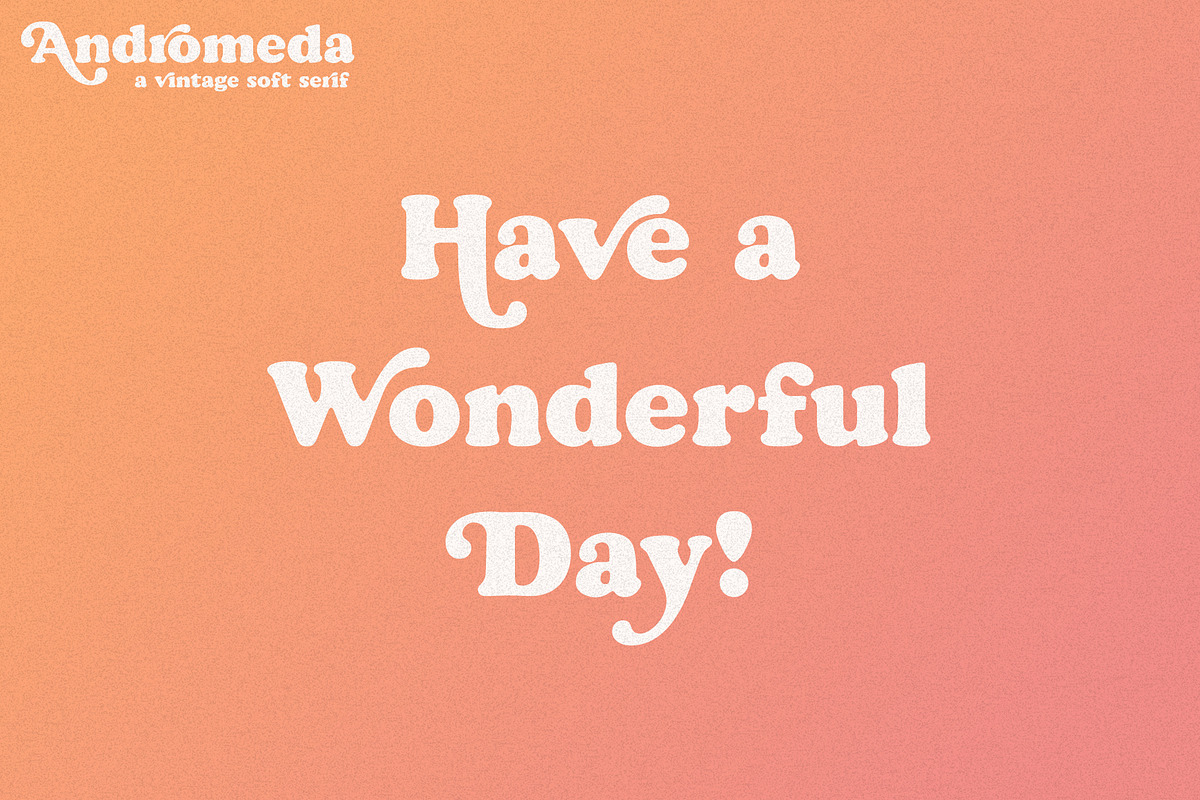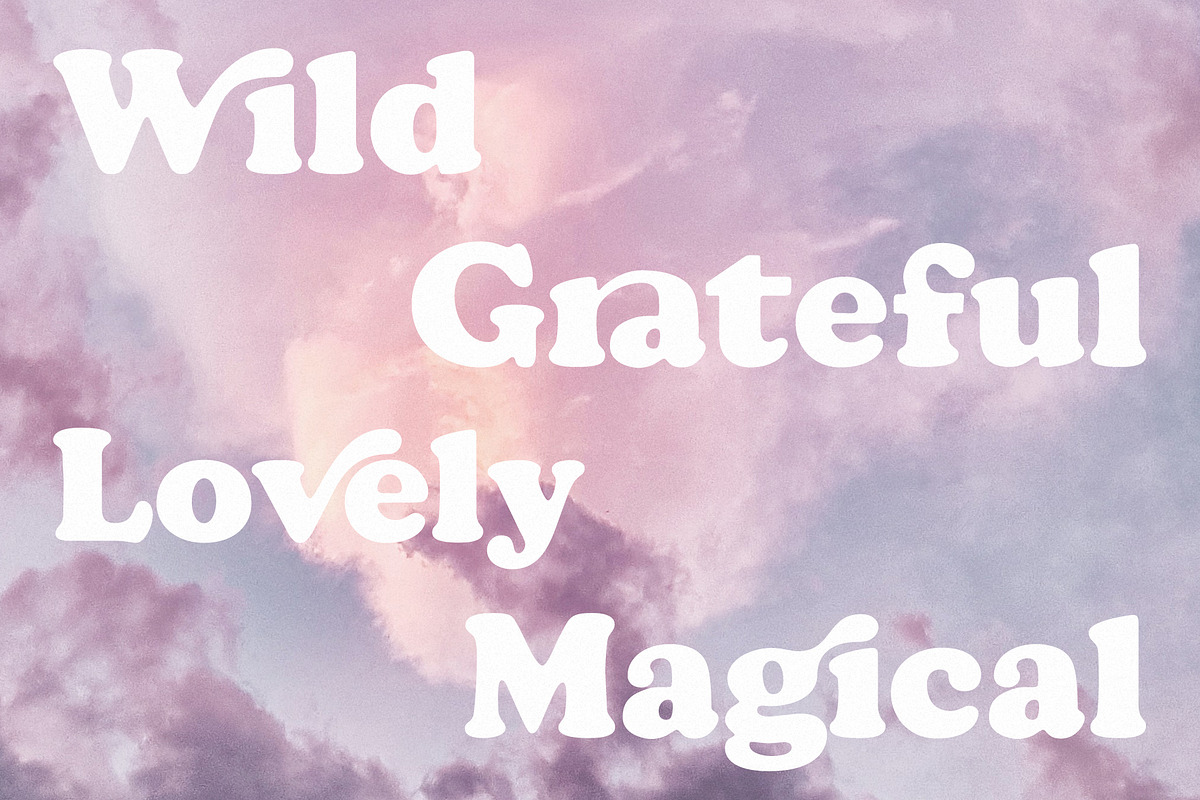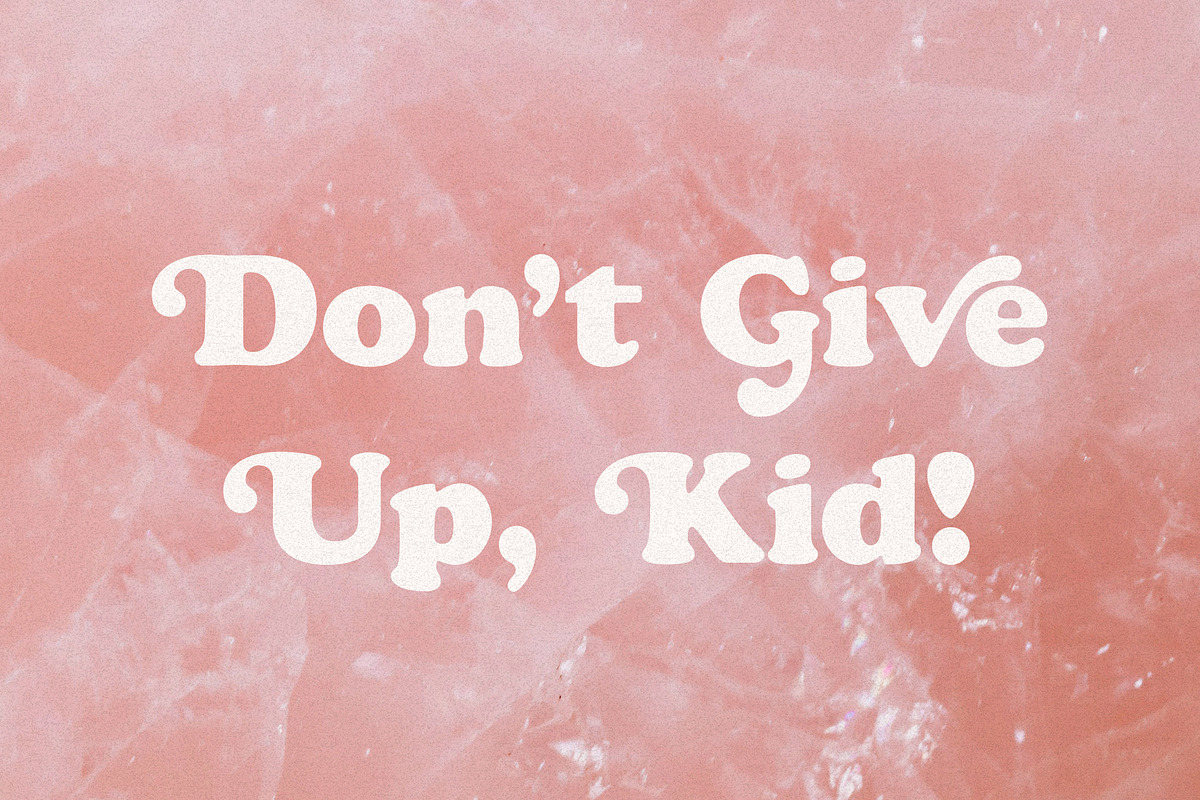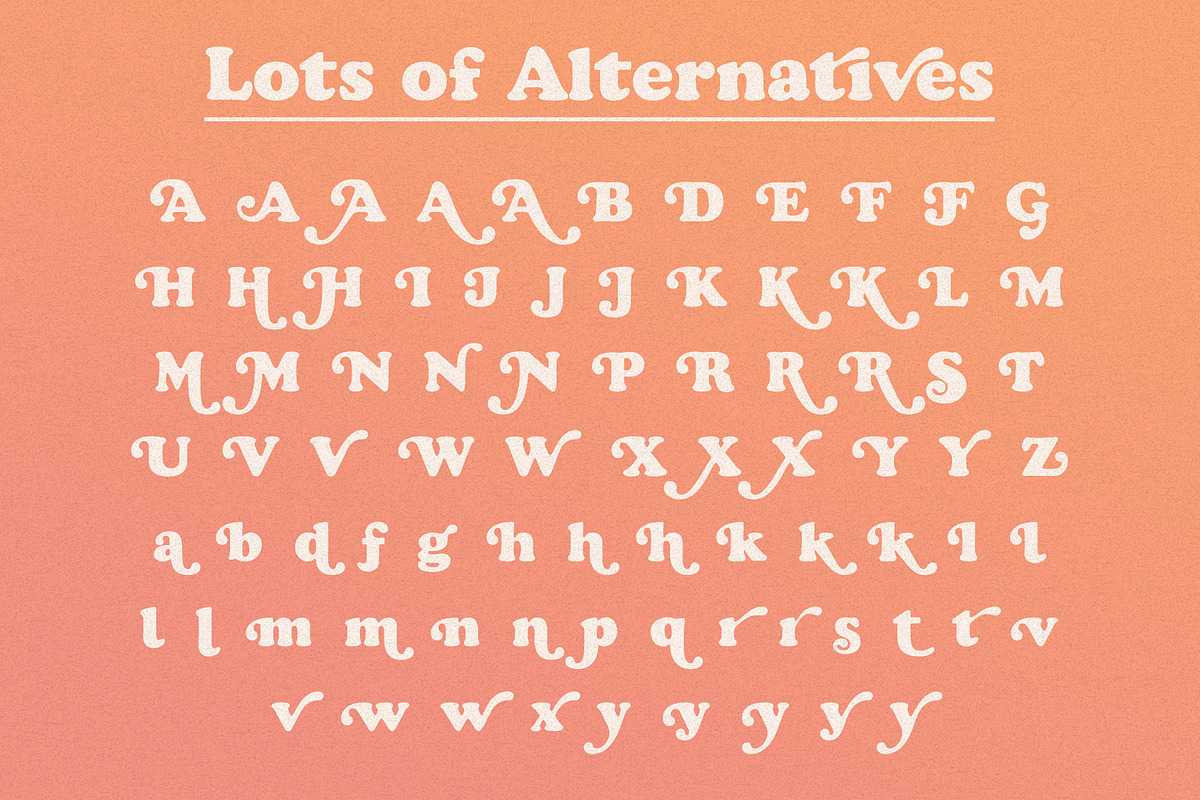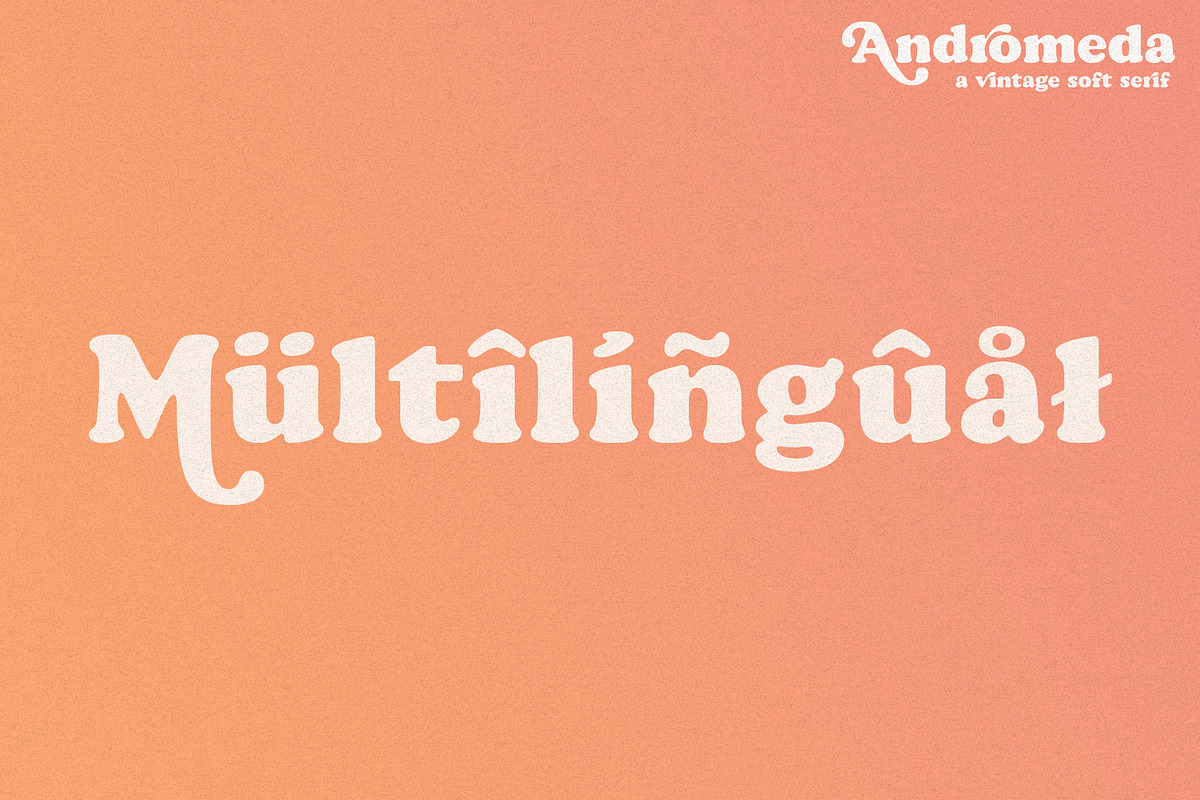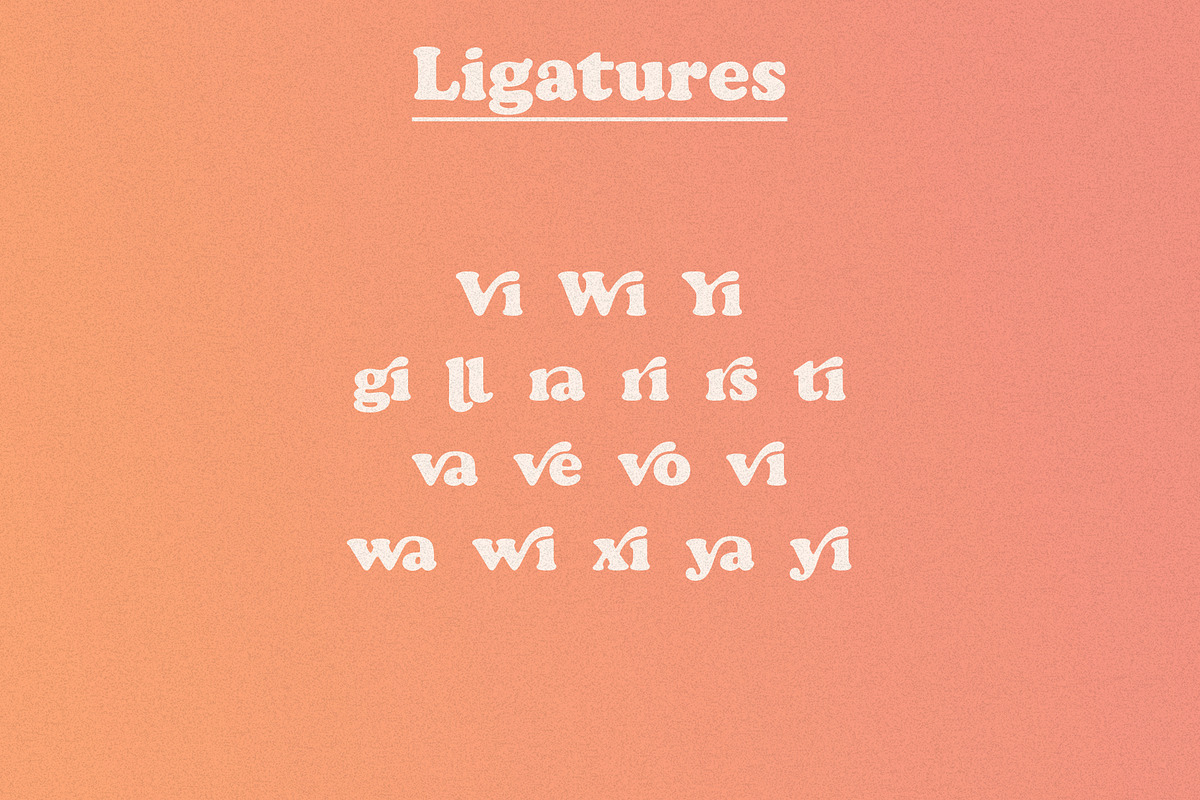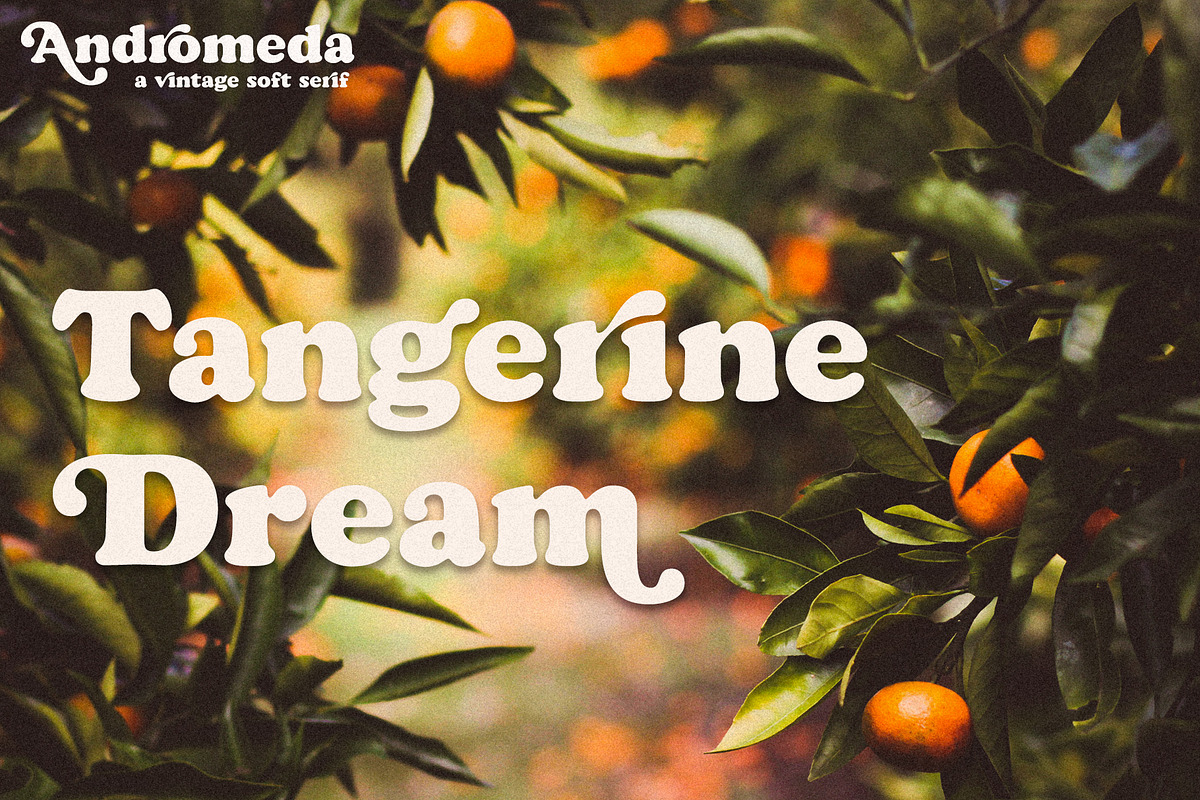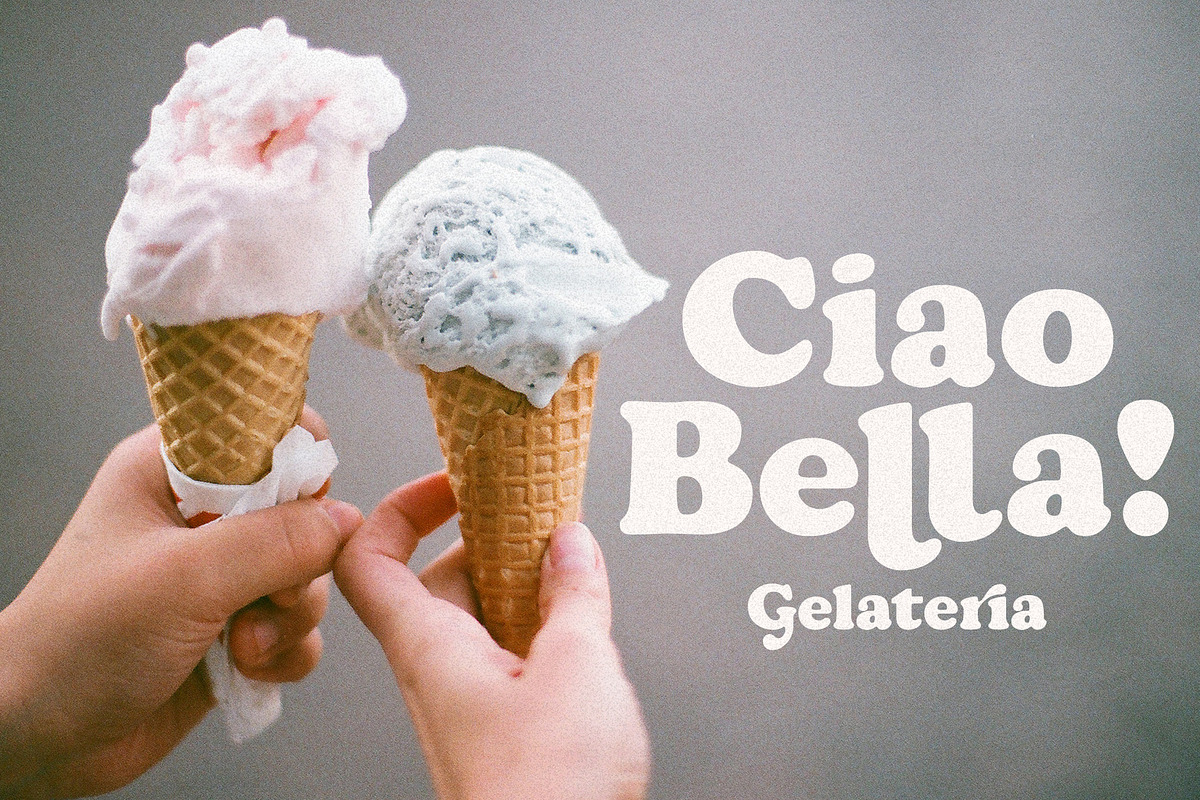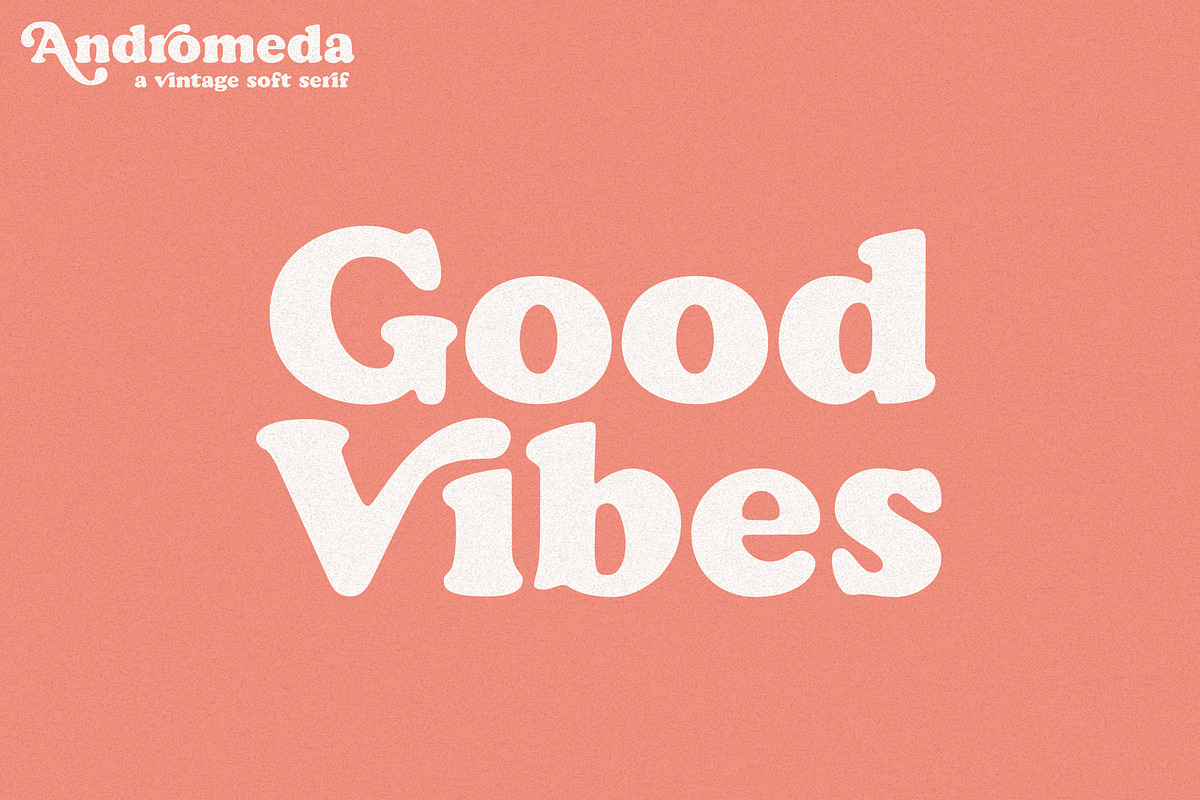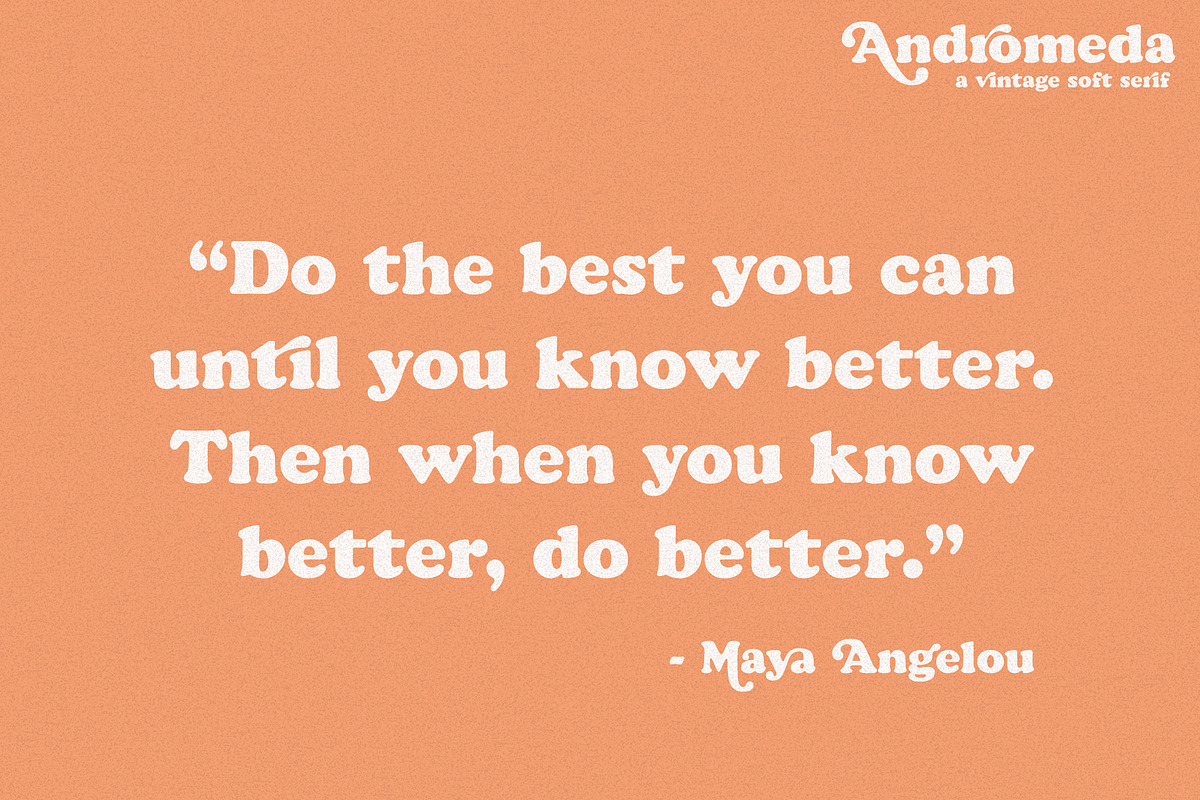
Andromeda // A Vintage Soft Serif
Andromeda is a vintage, yet modern, soft serif font. This retro looking font was inspired by Oswald Bruce Cooper's famous font Cooper Black. I was inspired to recreate it and add my own twist after seeing the typeface in a vintage hand lettering book from the 1970s. To make it more fun and exciting, I added several alternate letters and ligatures (with more on the way with future updates)!
Andromeda is a versatile font that can be used for a wide range of projects such as branding, social media, blogs, magazines, editorials, wedding invites, logo designs, posters, and so much more! Use the basic serif version for a bold look or add in some of the alternative letters to give your design an extra oomph! To access the alternative letters, use OpenType features to select the characters you're looking for.
- Upper and lowercase letters
- Accented characters for the international designer
- 18 ligatures
- Over 80 alternative letters